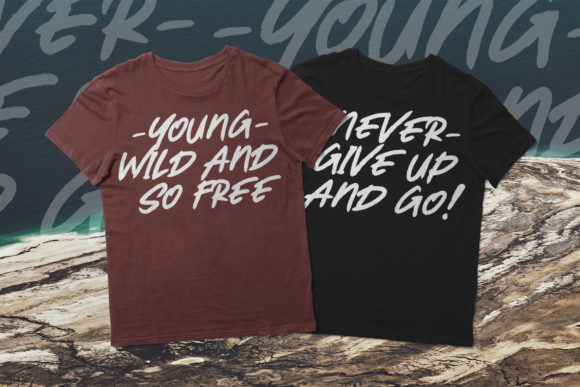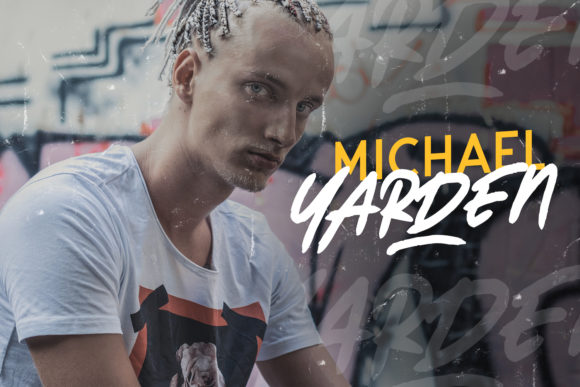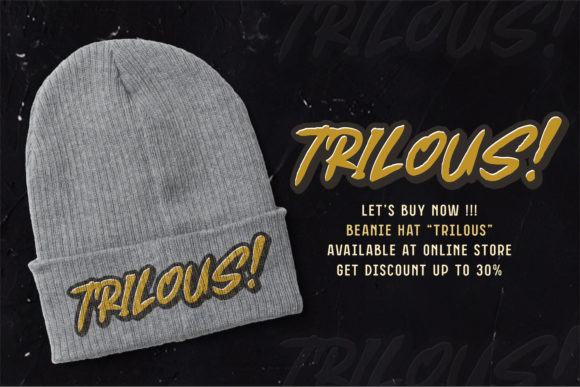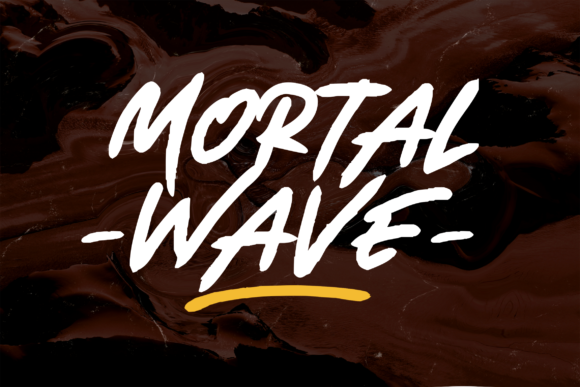
Introduction to Mortal Wave Font
Mortal Wave results out of a stunning pairing of a brush pen and pencil that makes it look incredibly endearing and authentic.
Use this gorgeous and unique display font to bring any DIY project to life .